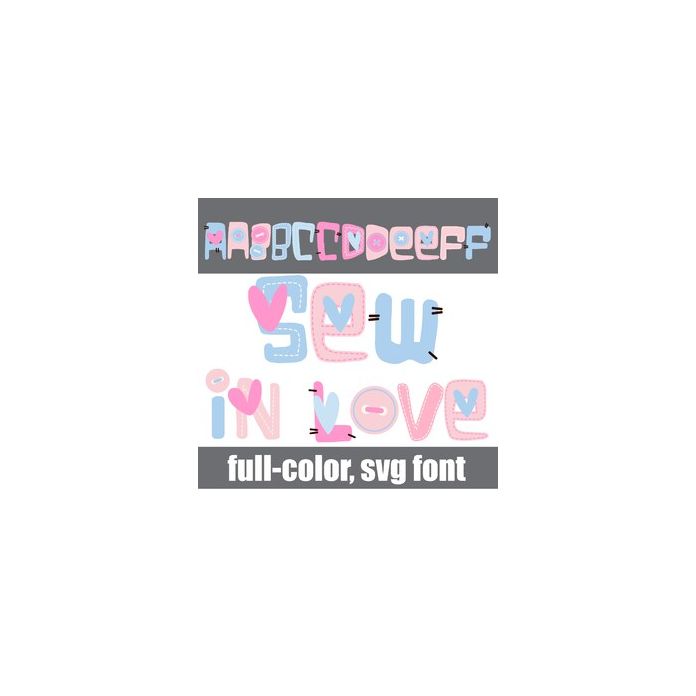
This full-color font features buttons, stitches, hearts and a Valentine's color palette. There is an alt case w/ additional colors you can access through your system or Silhouette's glyph map.